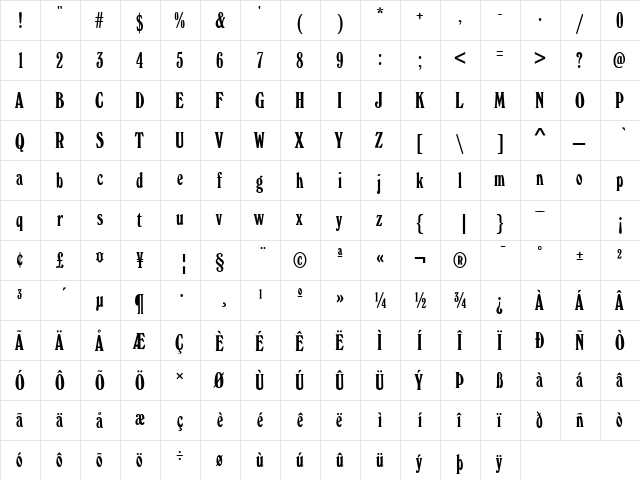
Windsor Elongated REGULAR
Design Context for Windsor Elongated Typeface
Windsor Elongated is a composed and adaptable typeface that performs quietly and consistently across a wide range of design contexts.